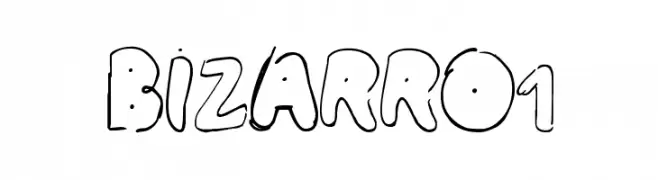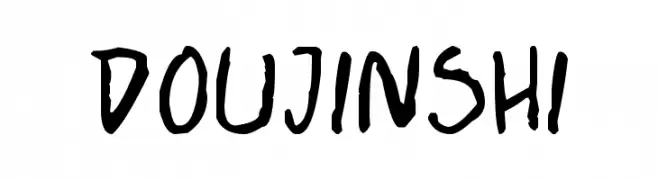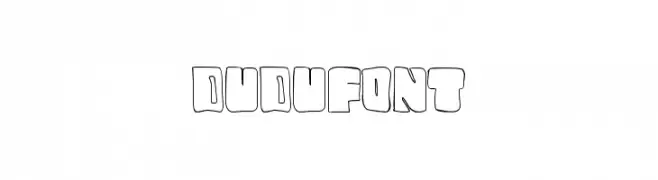
A playful, hand-drawn uppercase font with a whimsical style.
A playful, hand-drawn font with a whimsical and casual style.
A bold, playful font with thick, rounded characters and a whimsical style.
A playful, hand-drawn font with a cartoonish and quirky style.
A playful, hand-drawn font with bold, rounded letters and a whimsical style.
A playful, sketch-like font with a hand-drawn appearance and textured strokes.
A bold, hand-drawn font with a playful and informal style.
A whimsical, hand-drawn font with irregular strokes and a playful aesthetic.
A playful, hand-drawn font with a sketch-like, textured appearance.